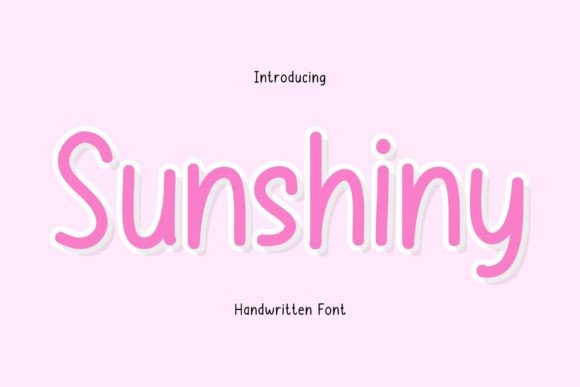
Step into the world of Sunshiny Font, a whimsical handwritten font that exudes playfulness and authenticity. Designed by the talented Brown Cupple Fonts, Sunshiny's charming script dances across your screen, bringing a touch of rustic elegance to any project it graces.
With its amiable personality, Sunshiny Font effortlessly transforms your digital creations into works of art. Whether you're a blogger weaving tales, a designer crafting captivating logos, or a creative entrepreneur building a captivating brand, Sunshiny Font will elevate your projects to new heights.
Experience the magic of Sunshiny Font on your favorite designs and let its enchanting aura captivate your audience. From the warmth of blog posts to the boldness of logos, from the allure of branding to the allure of advertisements, Sunshiny Font effortlessly enhances every message you share.
Compose heartfelt invitations that reflect the joy of your special occasion. Design greeting cards that radiate warmth and cheer, spreading happiness with every word. Craft planners and photo albums that preserve your treasured memories, adding a touch of charm to life's cherished moments.
Unlock the full potential of Sunshiny Font and unleash your creativity. Let its playful spirit inspire unique decorations that transform your space into a haven of delight. Explore its versatility in presentations, social media graphics, and even product packaging, leaving an unforgettable impression on your audience.
Sunshiny Font is more than just a font; it's a creative companion that breathes life into your designs. Its charming script adds a touch of whimsy to your words, making them leap off the screen and dance before your eyes.
Prepare to be mesmerized by the endless possibilities that await you with Sunshiny Font. Its endearing personality and captivating style will ignite your imagination, transforming ordinary projects into extraordinary masterpieces. Embrace the beauty of Sunshiny Font today and embark on a creative journey that will leave you spellbound.